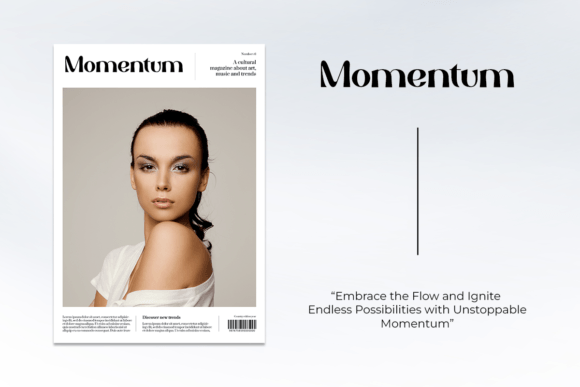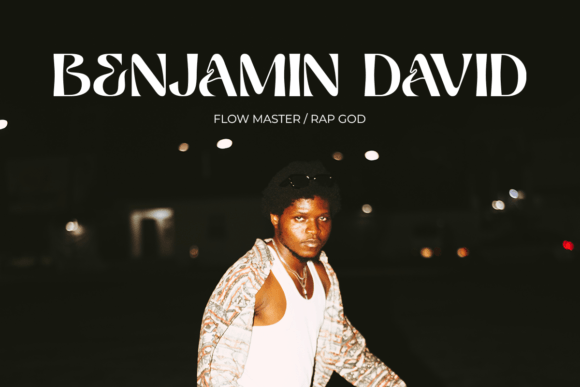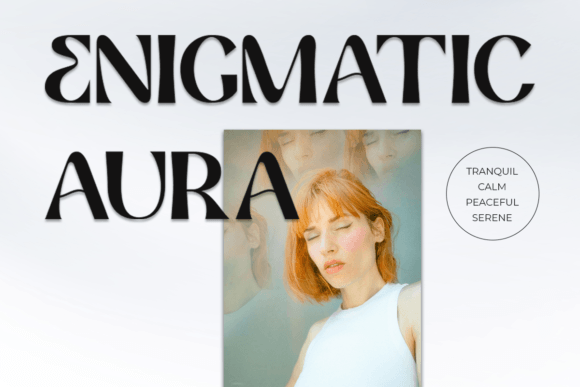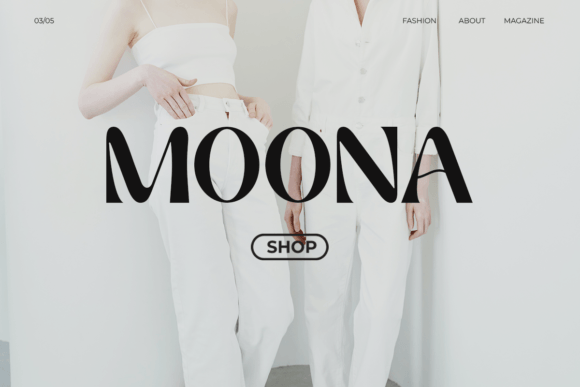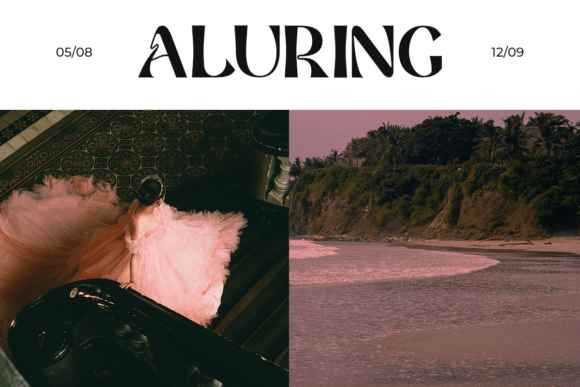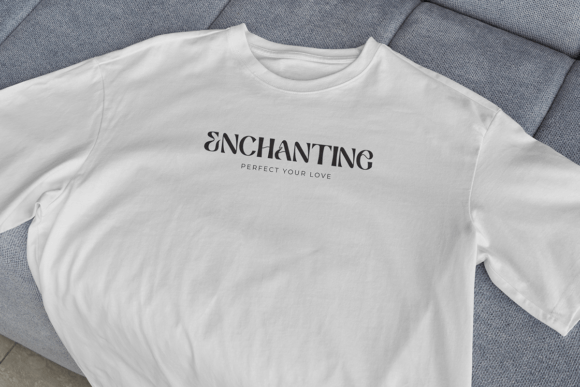
Introduction to Quaint Vibe Font
Have you ever been browsing through a vintage thrift store, and suddenly, you stumble upon a quirky poster that captures your attention? The colors, the typography, the overall feel of it – it’s like a time capsule that transports you to a different era. This is the kind of creative moment that inspired the creation of the Quaint Vibe Font, a unique display font that combines vintage aesthetics with modern design elements.
As a designer, you’re always on the lookout for that special something that sets your project apart from the rest. The Quaint Vibe Font offers just that – a touch of whimsy and character that can elevate any design to the next level. With its extensive set of alternate characters and ligatures, this font provides endless creative possibilities, making it a valuable resource for any design project.
Whether you’re working on a creative project that requires a high-quality, free download font or simply looking for a design resource that can add a touch of personality to your work, the Quaint Vibe Font is sure to impress. So, what are you waiting for? Let’s dive into the world of Quaint Vibe Font and explore its endless possibilities.
Key Features of Quaint Vibe Font
- High-quality, unique typography for creative projects, offering a distinct and charming aesthetic.
- Transparent background option, allowing for seamless integration with various design elements and backgrounds.
- Available in a range of sizes, from 12pt to 72pt, making it suitable for various design applications and projects.
- Features a high-resolution design, ensuring crisp and clear display on various screens and devices.
- Perfect for designers looking for a unique, high-quality font to elevate their creative projects and designs.
Honest Review: Quaint Vibe Font
I recently had the chance to work with the Quaint Vibe Font, and I must say it’s a great addition to any creative project. The font is perfect for designers who need a high-quality, unique font that will add a touch of elegance to their designs.
What works well about the Quaint Vibe Font is its versatility. It can be used for both digital and print designs, and it looks great on both dark and light backgrounds. The font also has a transparent background option, which makes it easy to use as a design resource.
- ✨ Unique and elegant design
- ✨ High-quality and crisp lines
- ✨ Versatile and can be used for digital and print designs
- ✨ Transparent background option available
- ⚠️ Limited weight and style options
Overall, the Quaint Vibe Font is a great design resource that can add a touch of elegance to any creative project. While it has a few limitations, it’s a great option for designers who need a high-quality, unique font.
The Quaint Vibe Font is suitable for various design projects, including wedding invitations, baby shower invitations, and social media graphics. Its unique, high-quality design makes it an ideal choice for creative projects requiring a free download font with a transparent background.
For optimal results, pair the Quaint Vibe Font with a high-quality design resource. Experiment with different font sizes, colors, and backgrounds to achieve the desired effect. Use the font’s transparent background feature to create visually appealing designs with a unique, whimsical touch.